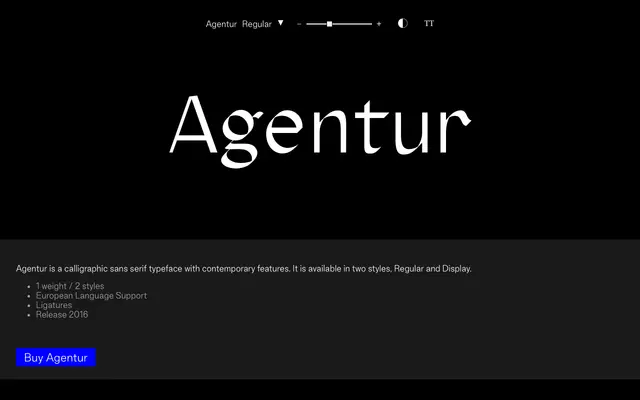
Agentur
Good Type Foundry · 2016
A calligraphic sans with contemporary detailing, offered in Regular and Display styles with broad European language support.
Released in 2016, this single-weight family draws on calligraphic letter construction while keeping its finish contemporary and clean. The two styles, Regular and Display, serve different size contexts, and the character set covers 172 accented glyphs for wide European language support alongside ligatures, fractions and a full complement of symbols. It suits editorial and identity work where a touch of pen-influenced warmth is wanted without resorting to an overtly script-style face.
Described explicitly as a calligraphic sans serif; its contemporary features and pen-influenced forms place it firmly in the calligraphic sans subcategory rather than humanist or geometric.